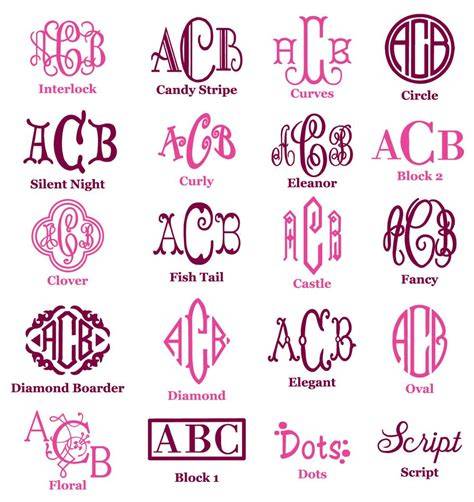
Monogram Fonts: A Guide To The Most Pretty Monogram Fonts Of 2023
What Is A Monogram Font?
A monogram font is a type of font that is used to create a personalized logo or design. Monograms are usually composed of two or more letters (or symbols) that are combined to form a unique design. They are often used as logos, insignia, or marks of identification. Monograms can be used to create branding, or to add a personal touch to an item. Monograms are also popular in the fashion industry, with many companies using them to create their signature logos. Monogram fonts are designed to be used in a variety of settings, from clothing to stationery.
Why Choose a Monogram Font?
Monogram fonts are a great way to make your design stand out. Monograms are a timeless design element that have been used for centuries to create a unique and stylish look. They are perfect for branding and for adding a personal touch to a project. Monogram fonts are also popular in the fashion industry, with many companies using them for their logo designs. Monogram fonts are also easy to use, making them a great choice for both experienced and novice designers.
The Most Popular Monogram Fonts of 2023
In the world of monogram fonts, there are many options to choose from. In 2023, there are some of the most popular monogram fonts that are sure to make your design stand out. These include the classic and timeless 'Monofett,' the modern and stylish 'Futura Bold,' and the unique and eye-catching 'Futura Condensed.' Each of these fonts has its own distinct style, making it easy to find the perfect font for your project.
Monofett
Monofett is a classic monogram font that was created in the 1950s. It is a bold, rounded font that is perfect for creating a timeless design. Monofett is often used for logos, branding, and for adding a personal touch to an item. It is a popular choice for apparel, stationery, and other products. Monofett is a great choice for anyone looking for a classic and timeless monogram font.
Futura Bold
Futura Bold is a modern monogram font that was created in the 1970s. This font is bold and angular, making it perfect for creating a unique and stylish design. Futura Bold is often used for logos, branding, and for adding a personal touch to an item. It is a popular choice for apparel, stationery, and other products. Futura Bold is a great choice for anyone looking for a modern and stylish monogram font.
Futura Condensed
Futura Condensed is a unique monogram font that was created in the 1980s. This font is condensed and angular, making it perfect for creating a bold and eye-catching design. Futura Condensed is often used for logos, branding, and for adding a personal touch to an item. It is a popular choice for apparel, stationery, and other products. Futura Condensed is a great choice for anyone looking for a unique and eye-catching monogram font.
Monogram fonts are a great way to make your design stand out. In 2023, there are some of the most popular monogram fonts that are sure to make your design stand out. These include the classic and timeless Monofett, the modern and stylish Futura Bold, and the unique and eye-catching Futura Condensed. No matter what style you are looking for, there is sure to be a monogram font that is perfect for your project.